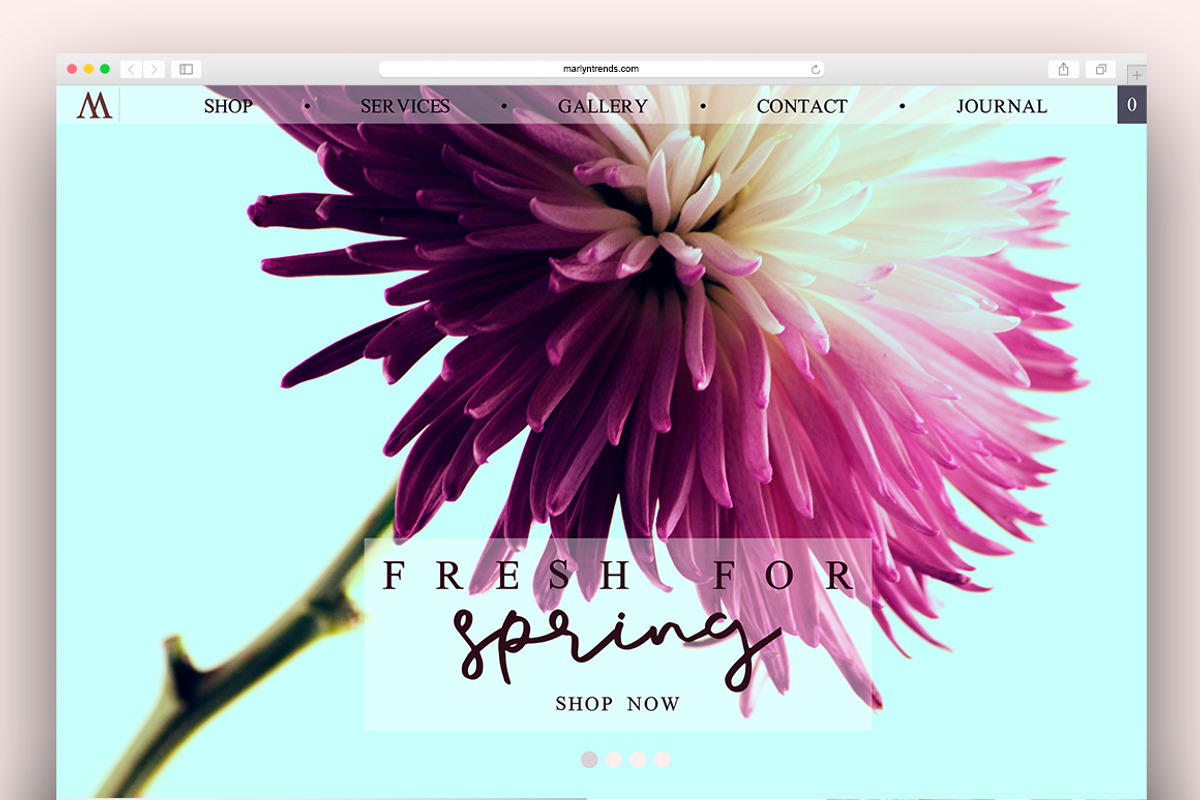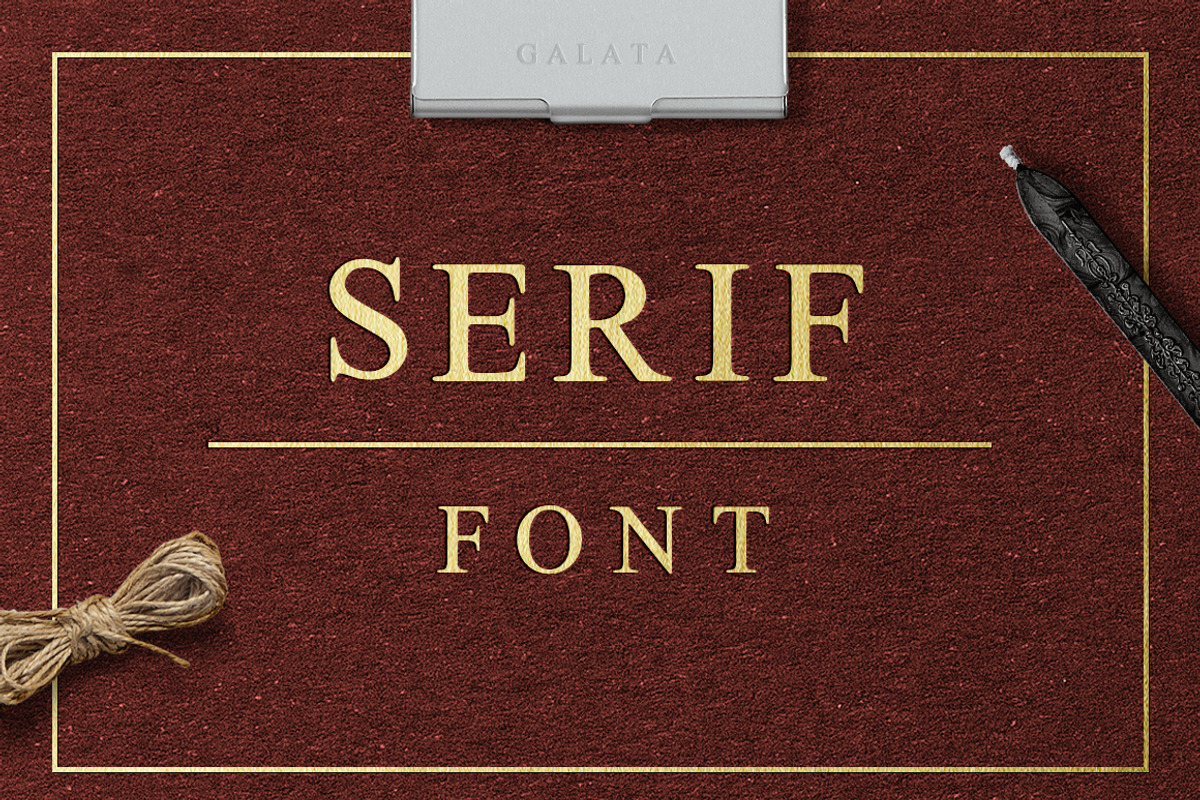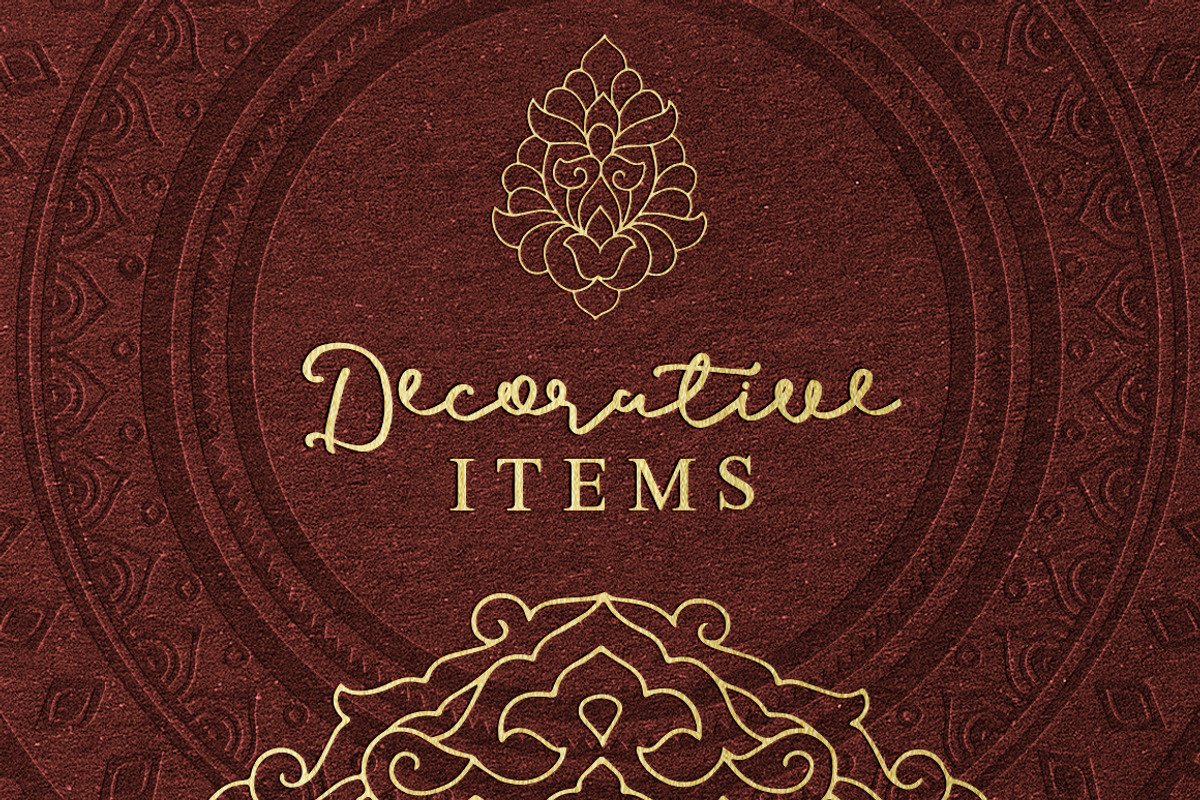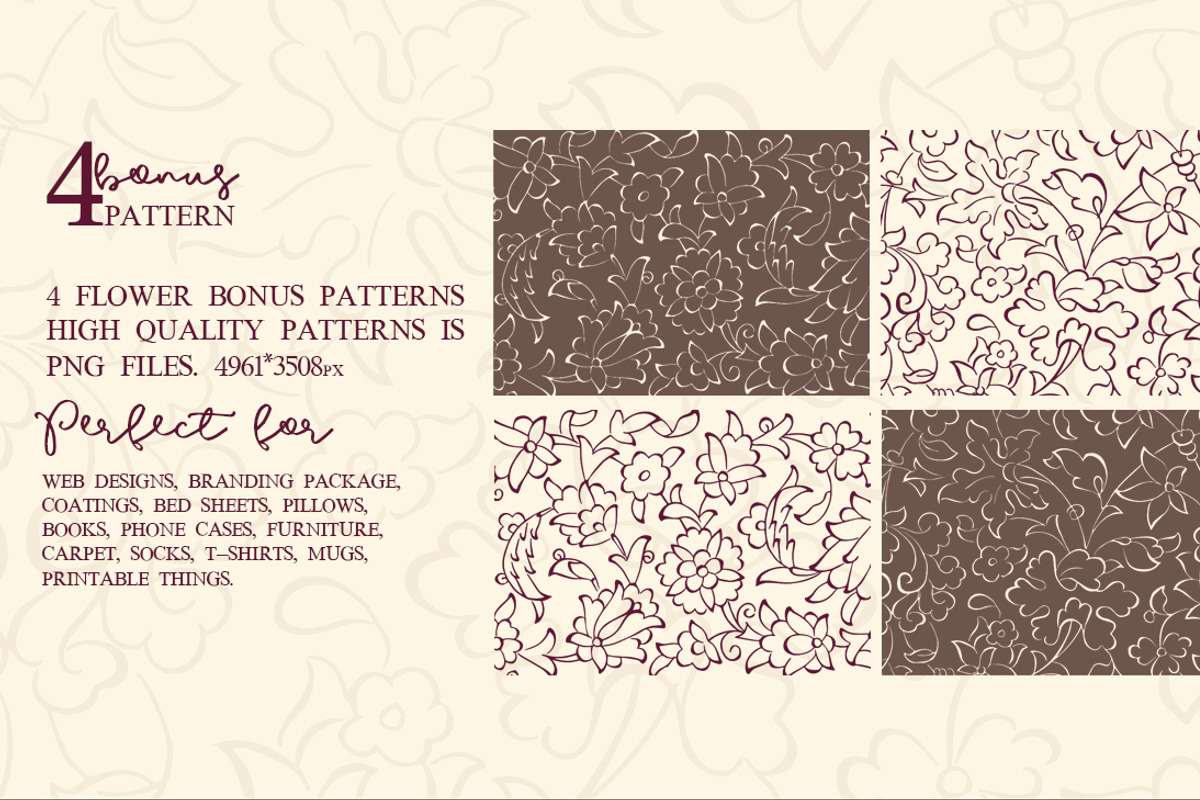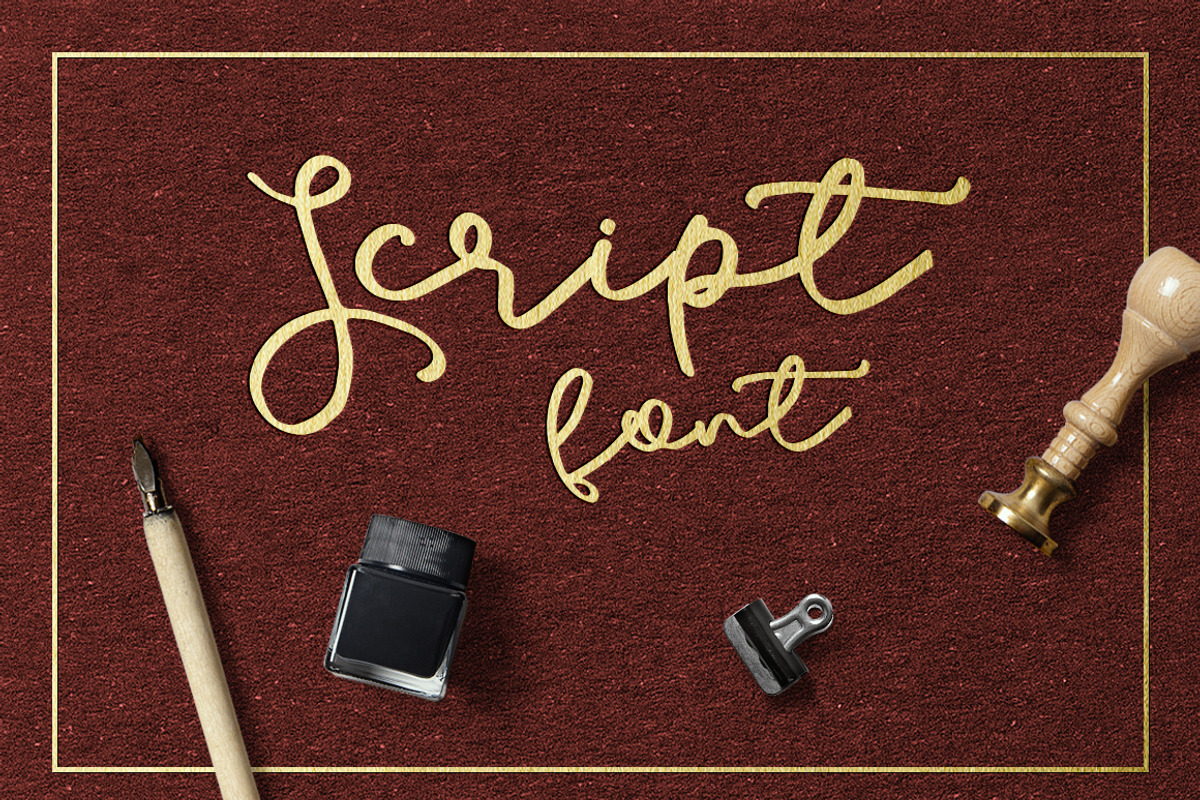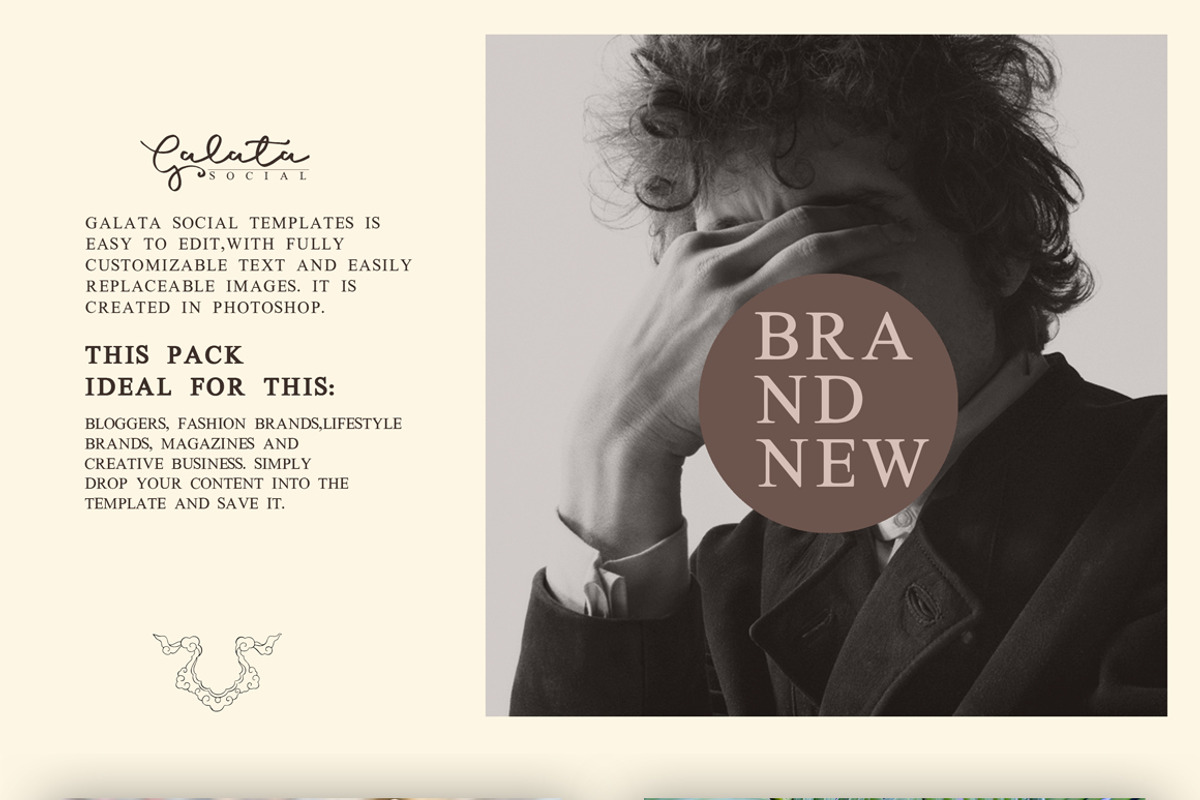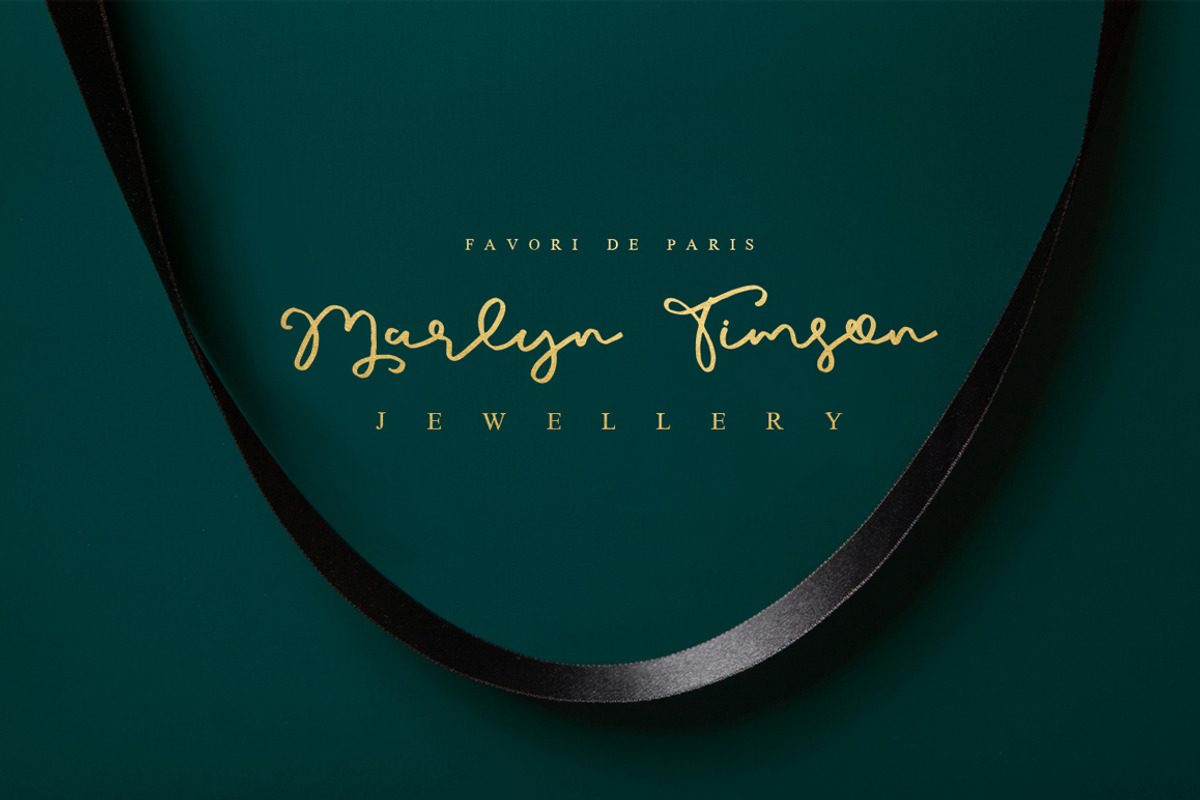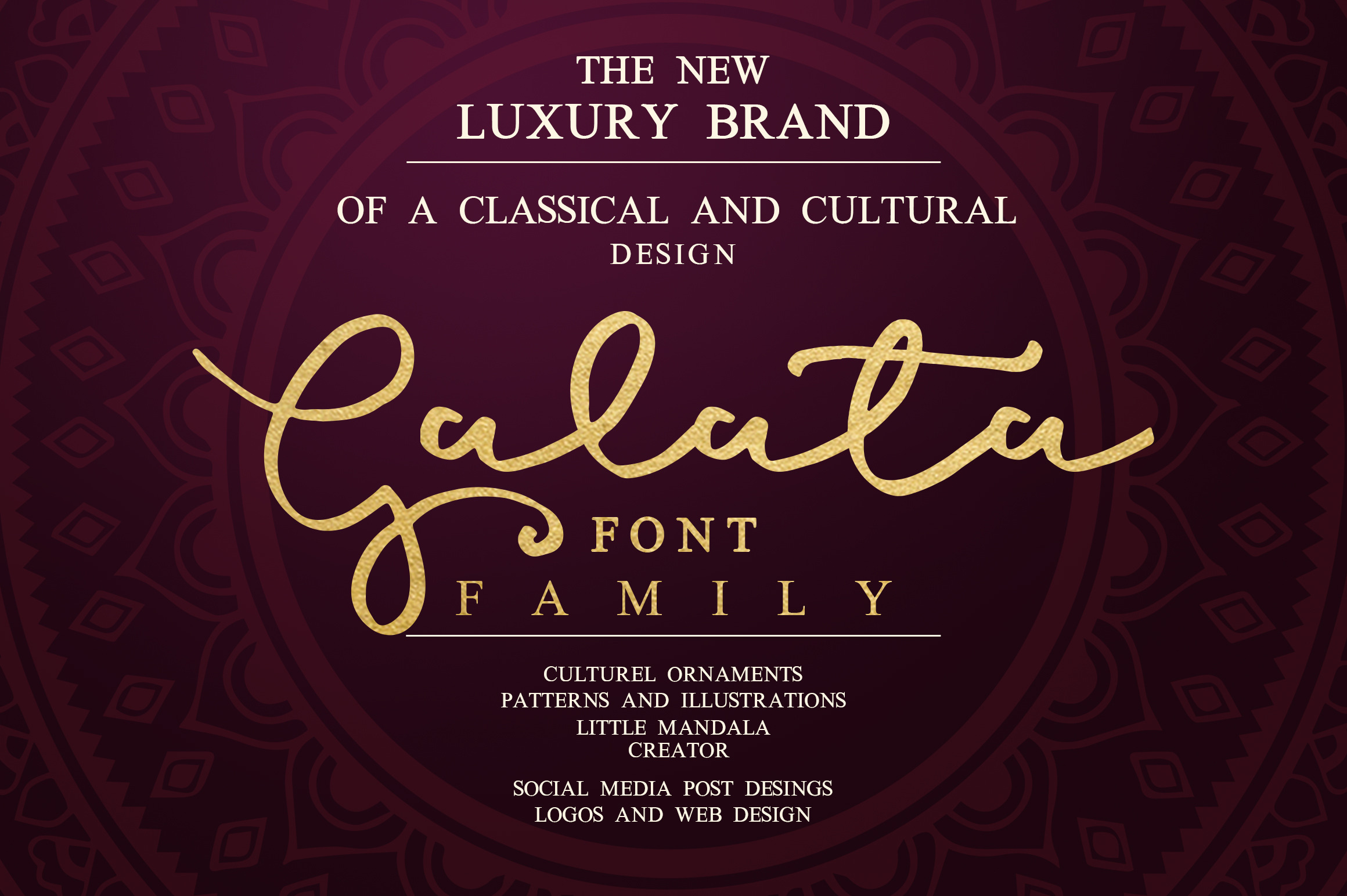
Galata Fonts & Extras
We are introducing our new product to you. The Galata Font Family and Extras ... The new luxury product is designed with classical and cultural details. You can use Galata Font Family for your favorite areas. To turn your dreams into reality.
Galata Script designed with a fluid line structure and perfect fit next to the Galata Serif .Galata Serif is the new face of the Times Roman font, redesigned for a perfect fit next to the Galata Script,curved and classic…
-Smooth and stylish Galata Script let you to write your text in a unique and aesthetic way. Perfect curves and eye-catching results. Also supports many languages and web usages. You will get OTF and TTF to use Galata with place that you need to write something.-
-Galata Serif redesigned to make Times New Roman more smooth and suitable with Galata Script. Now you have the power of two fonts combination on your projects. You can easily create awesome logos, badges, typography designs etc.-
Also you are going to get tons of additional vector elements. Carefully crafted vector illustrations for your next design projects. You can use these extra goodies with Galata fonts to get limitless results. And you will get 4 patterns that fits great with font and ornament illustrations. You can easily create greeting card designs, print designs, any designs related to typography and classical theme.
If you are a social media geek, you are getting the right file. Because you will get some social media ready made designs. Just edit your text and easily share your own contents with your followers and friends.